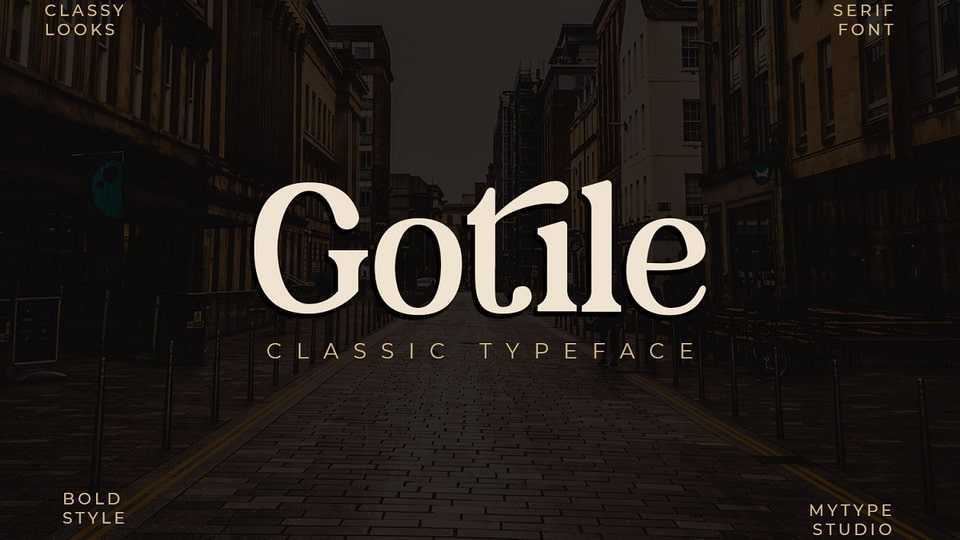
Download Gotile font, a serif typeface with a natural movement that makes it look elegant, classy and beauty for your project.
Designer: Mytype Studio